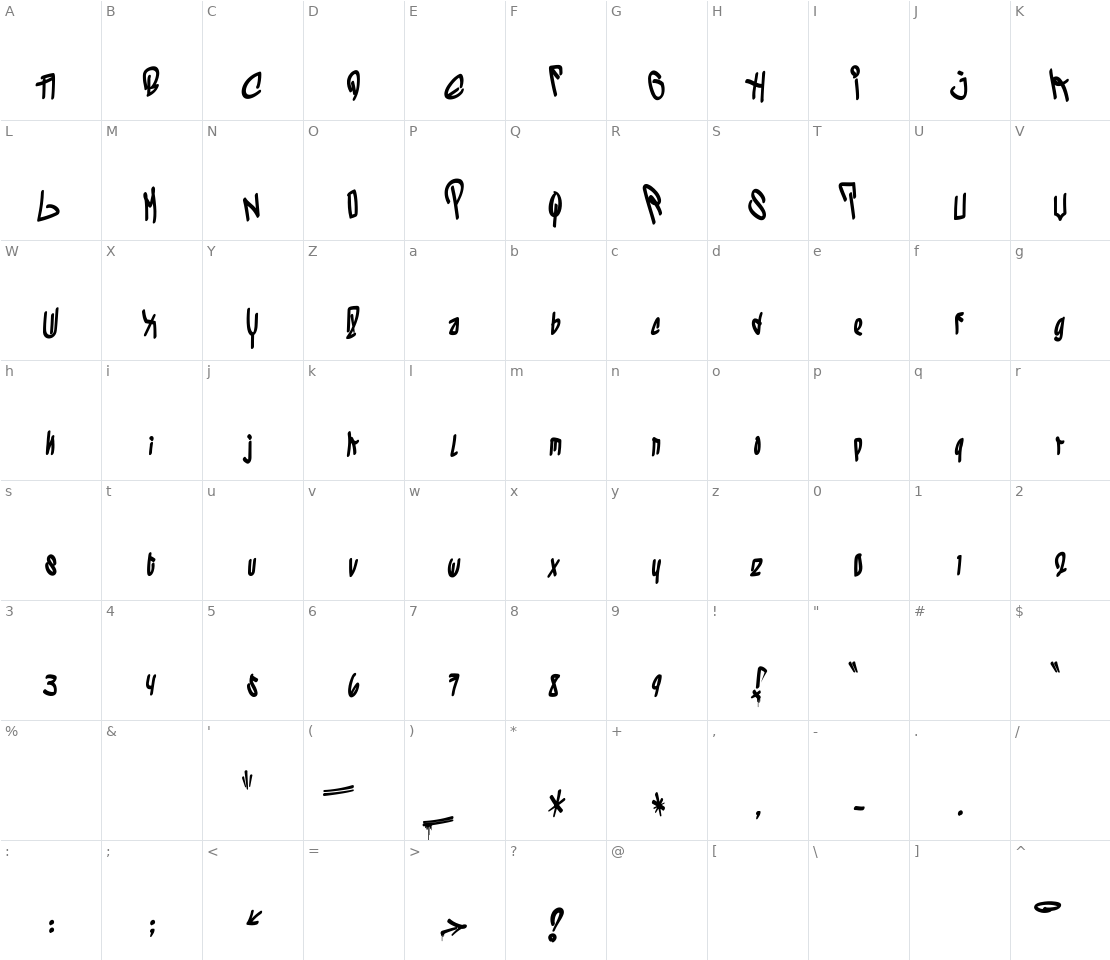
Los Vatos Locos
by Action King · Website
Los Vatos Locos is a bold graffiti face from Action King rooted in Chicano street lettering, with thick strokes and a raw tagging energy that feels pulled straight off a city wall. The letterforms carry that distinctive urban swagger, angular and loose at the same time, making it a strong pick for headlines, poster art, and anything tied to street culture. Best kept big where the attitude comes through.